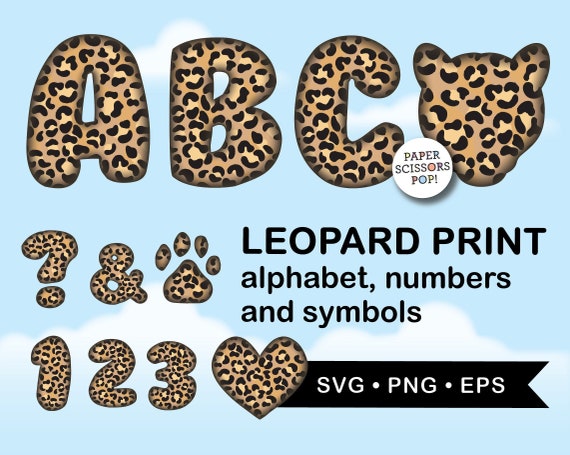
Leopard print alphabet set, leopard font clipart, leopard SVG letters for scrapbooking printing, cutout PNG, leopard sublimation alphabet
This cute leopard print alphabet set is great for handmade crafts, flyers, stickers, invitations, announcements, cards, stationary, party banners, tags, scrapbooking, web design, graphic design, printable objects such as brochures, cups, t-shirts, posters, banners and more
The clipart graphics can also be used for a variety of projects, such as greetings, logo design, blog posts and wedding stationery and more.